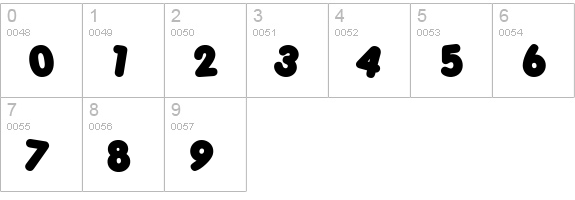
Porky's Heavy Font Details
Porky's Heavy is a heavy, high-impact variant in the Porky's typeface family \xE2\x80\x94 well suited to high-impact headlines, posters, and display advertising.
Porky's Heavy font is a bold and eye-catching typeface that exudes a sense of strength and impact. Its thick, heavy strokes make it perfect for headlines, titles, and other attention-grabbing design projects. The playful and energetic style of this font adds a touch of fun and personality to any text it is applied to. And the best part? Porky's Heavy font is available for free download at FontsMarket.com. This means you can easily add this dynamic font to your collection without any cost. Whether you're working on a poster, logo, or social media graphic, Porky's Heavy font will make your text stand out and leave a lasting impression on your audience. Download it today and elevate your designs with this striking typeface.